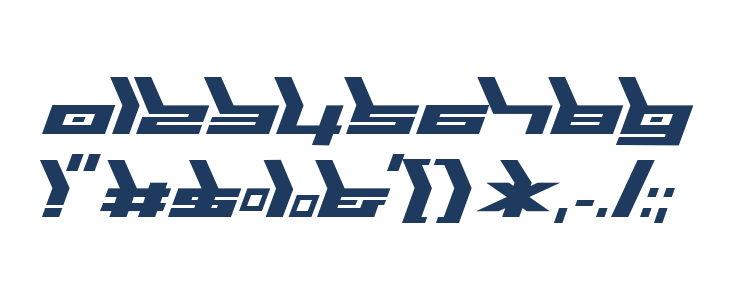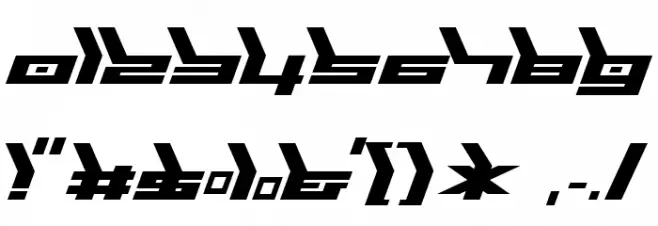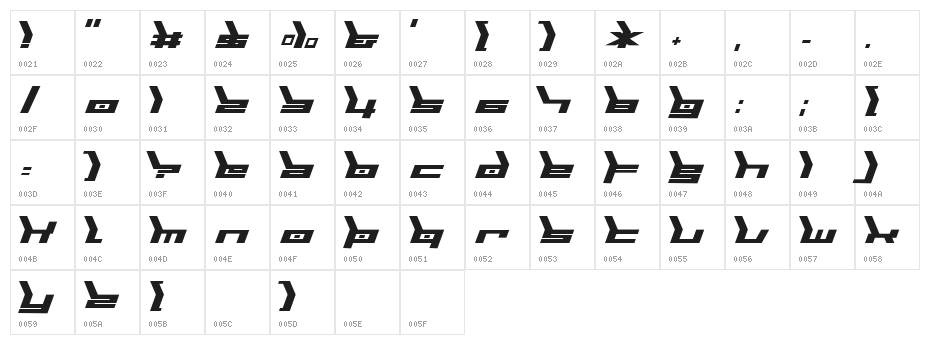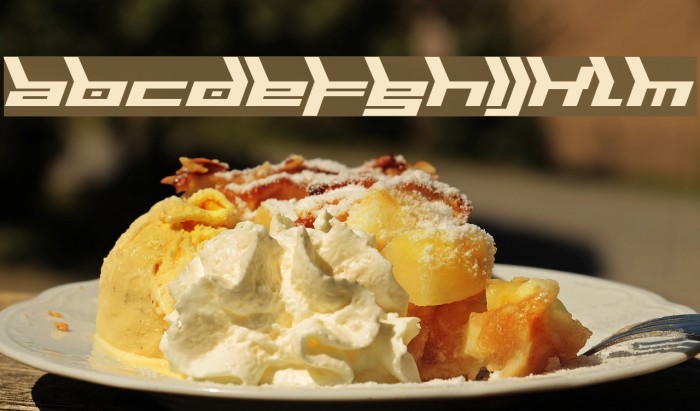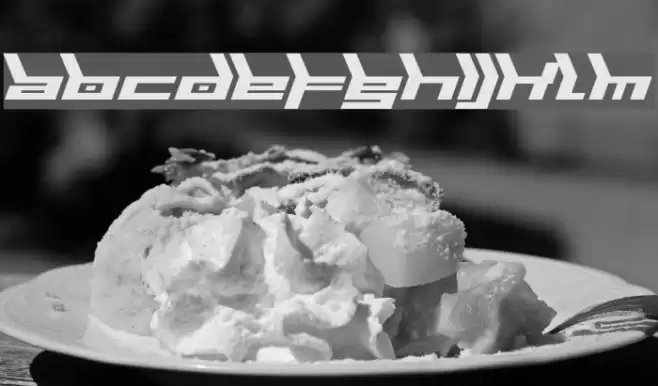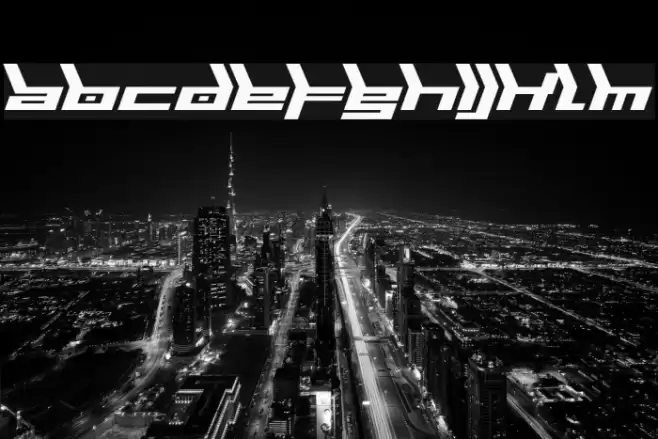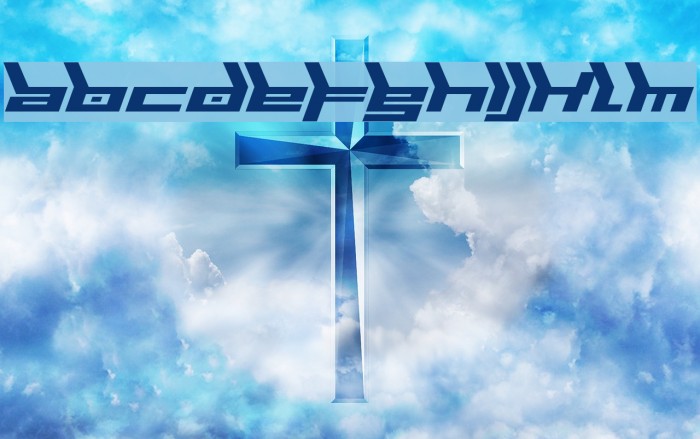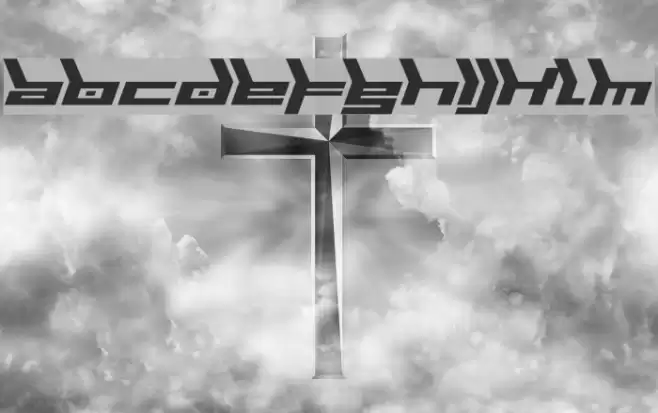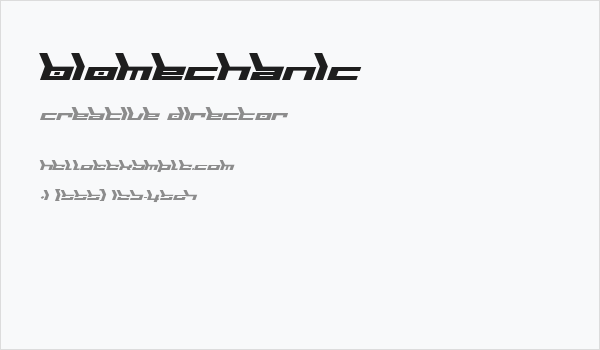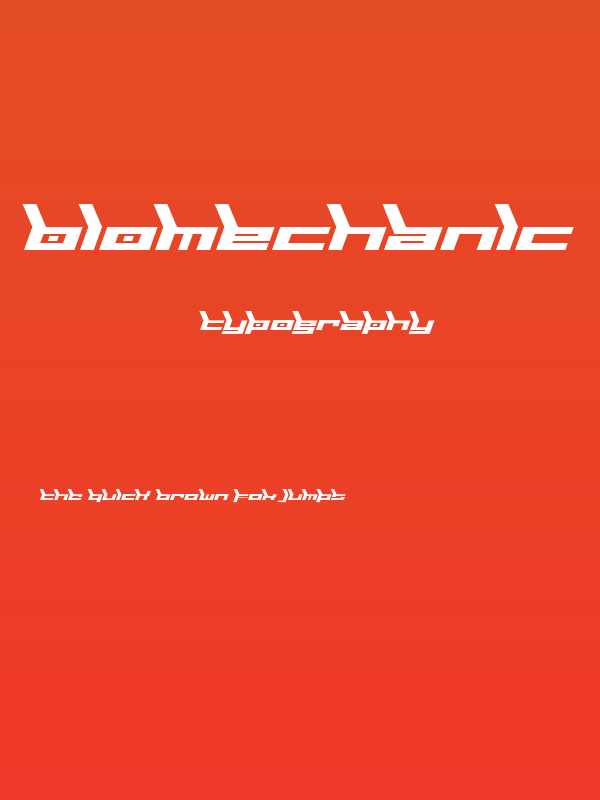
Biomechanic Font
Biomechanic Description
This font features a futuristic and mechanical design, characterized by bold, angular lines and geometric shapes. The letters are constructed with a distinct block-like appearance, giving them a strong, industrial feel. The uppercase and lowercase letters maintain a consistent style, with sharp edges and a uniform height, creating a cohesive look. The numbers and special characters follow the same design principles, ensuring a seamless integration with the alphabet. This font's unique style makes it ideal for projects that require a modern, tech-inspired aesthetic.
| Proposed Projects | Ideal for sci-fi themed projects, technology branding, video game titles, and futuristic posters. |